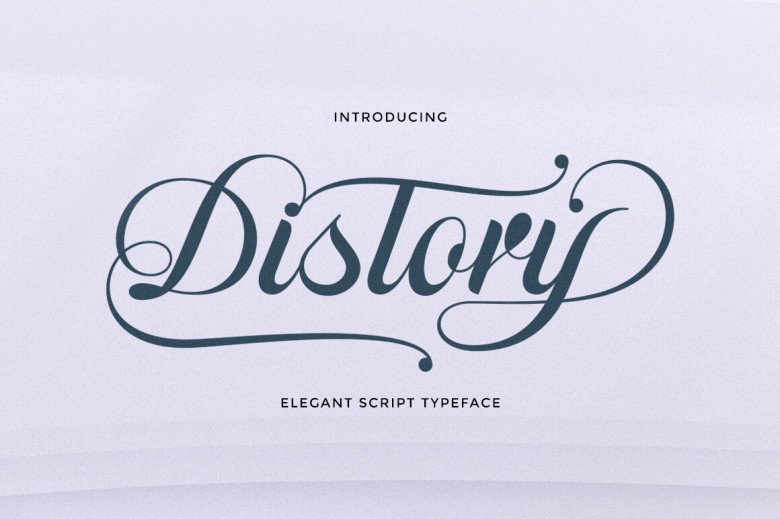
Distory is an elegant vintage calligraphy script font with stunning alternate characters. copper plate blends calligraphy with handwriting style to convey elegance while Pagoda attracts your attention as its typeface is soft elegant, clear and feminine. Distort script is a sensuous, feminine font that’s easy and accessible.
Available with both Clean and Aged variants for uppercase binding, as well as being loved across many types of finishes, Distory script makes a beautiful addition to any creative writing practice. Multilingual Support (Western Europe characters).
Distory Calligraphy Script Font